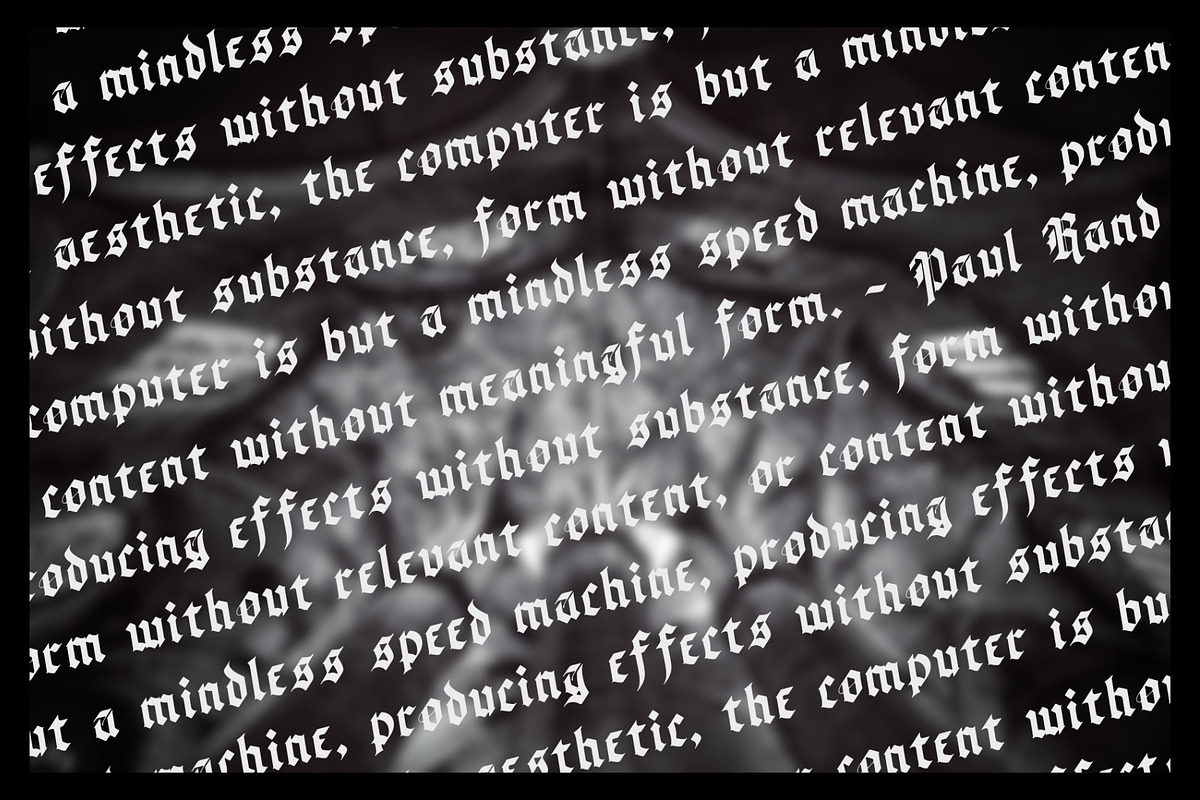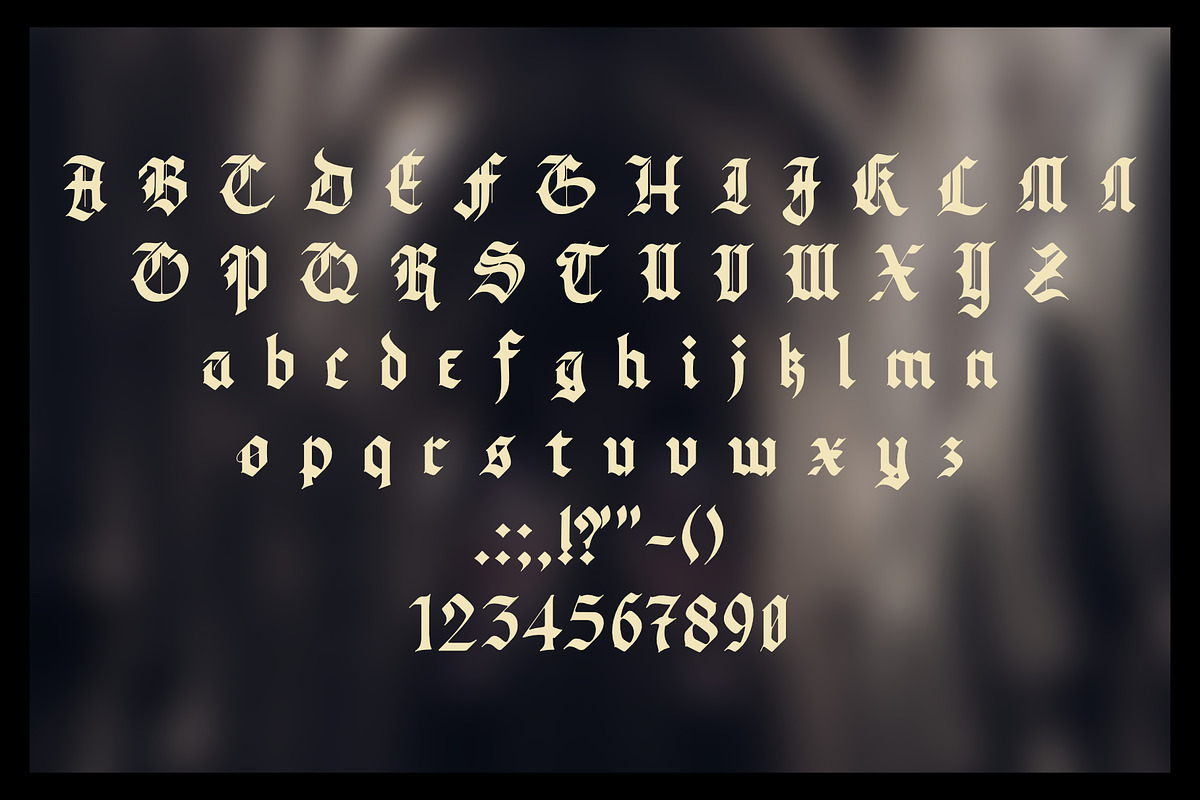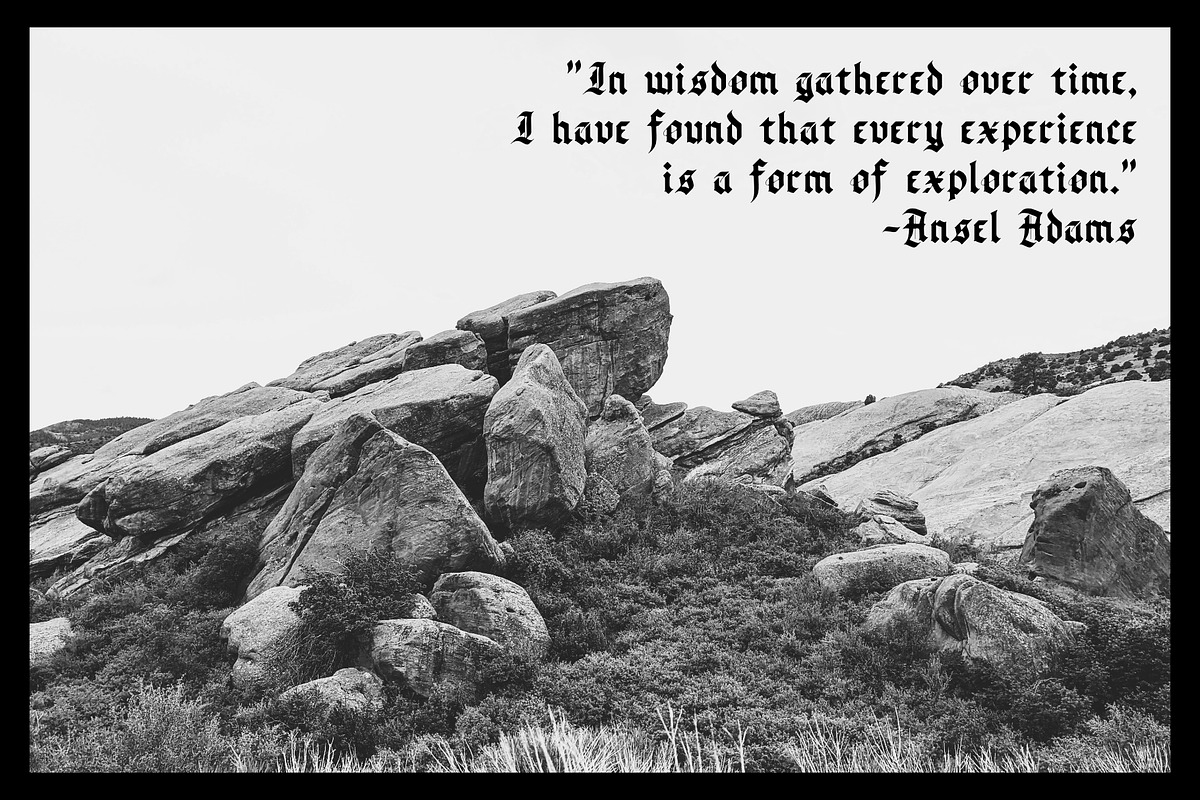
The New Gothic
Introducing The New Gothic, a captivating gothic blackletter font meticulously crafted to inspire your creative endeavors. Designed with a passion for blackletter fonts and a desire to bring their timeless elegance to the modern world, this typeface offers an enticing balance between darkness and simplicity.
Unveiling a contemporary twist on the classic blackletter style, The New Gothic embodies a clean and refined aesthetic. Its smooth and solid letterforms create a sense of clarity, while its understated ornamentation adds a touch of sophistication. Embracing a minimalist approach, this font exudes a distinct mood, evoking a sense of intrigue and enchantment.
Unlike traditional blackletter fonts rooted in historical influences, The New Gothic forges its own path, presenting a fresh interpretation untethered by specific time periods or cultural references. It paves the way for boundless creative exploration, allowing you to infuse your designs with a unique and modern twist.
Indulge in the allure of The New Gothic, and let its darkly enchanting beauty transform your designs into masterpieces that captivate and mesmerize. Discover the limitless possibilities this font unlocks, and embrace the artistry that awaits you.
The New Gothic: Ignite your creativity and unleash the power of gothic blackletter with a font that is as versatile as it is captivating.